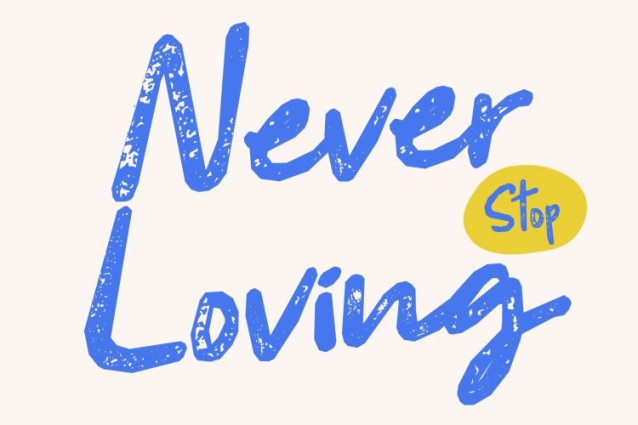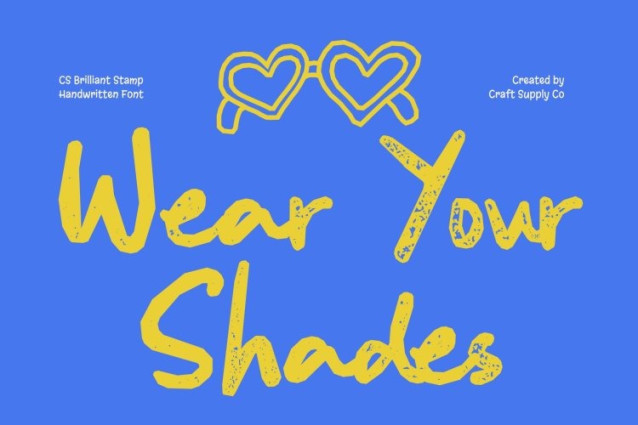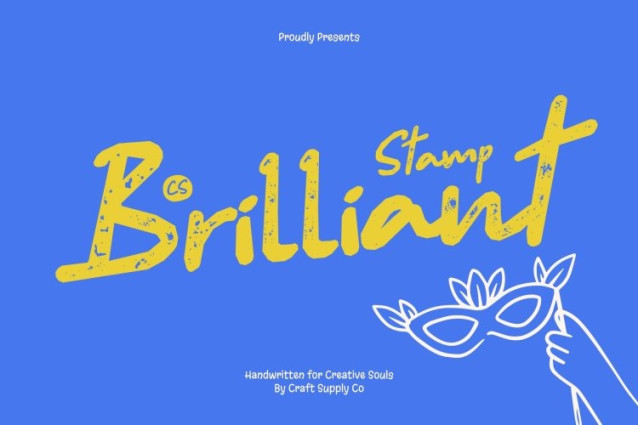
CS Brilliant Stamp Font
CS Brilliant Stamp Font – This is a handwritten script font designed to capture the beauty of natural pen strokes with a clean, modern touch. Its soft structure and smooth flow create a friendly and approachable appearance, blending the authenticity of handwriting with a clear and balanced form. The stamped texture adds a subtle handcrafted feel, giving the letters depth and personality while maintaining a modern and refined look.
Natural Pen Stroke Character
Inspired by real handwritten movement, this font features organic curves and gentle irregularities that bring genuine character to every letter. The stamped texture enhances this natural expression, creating a slightly imperfect surface that feels artistic and tactile. These details add warmth and emotion, making the typography feel human, relaxed, and inviting.
Expressive and Approachable Style
Unlike overly decorative scripts, maintains a smooth and structured flow that keeps text readable and visually balanced. The combination of handwritten elegance and textured detail produces a soft yet expressive aesthetic. It feels casual and personal while still appearing polished and thoughtfully crafted.
Perfect for Personal and Casual Design
This is ideal for personal branding, inspirational quotes, casual invitations, lifestyle content, and creative social media designs. Its natural handwritten character and textured finish bring warmth and authenticity to any project, making designs feel more personal, charming, and engaging.